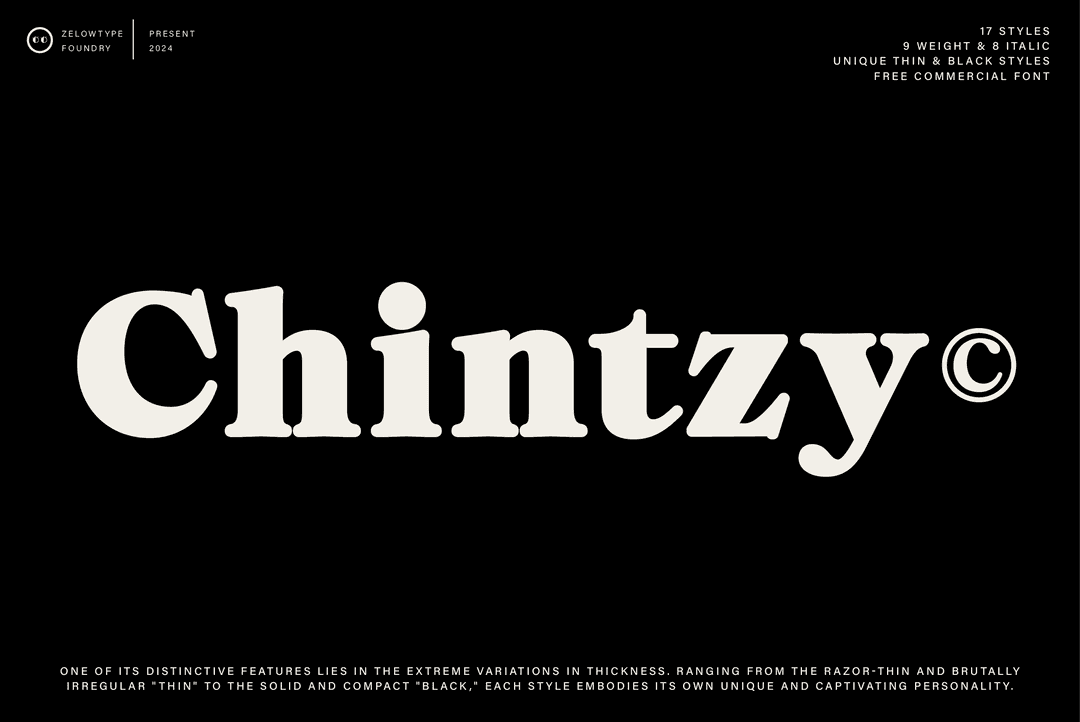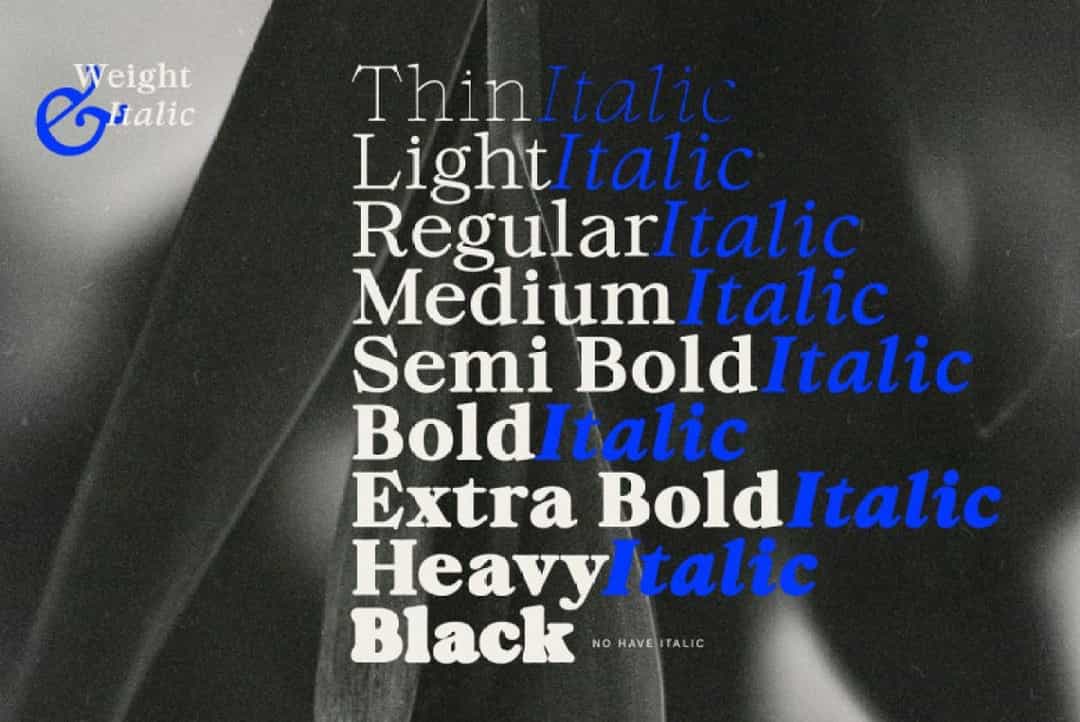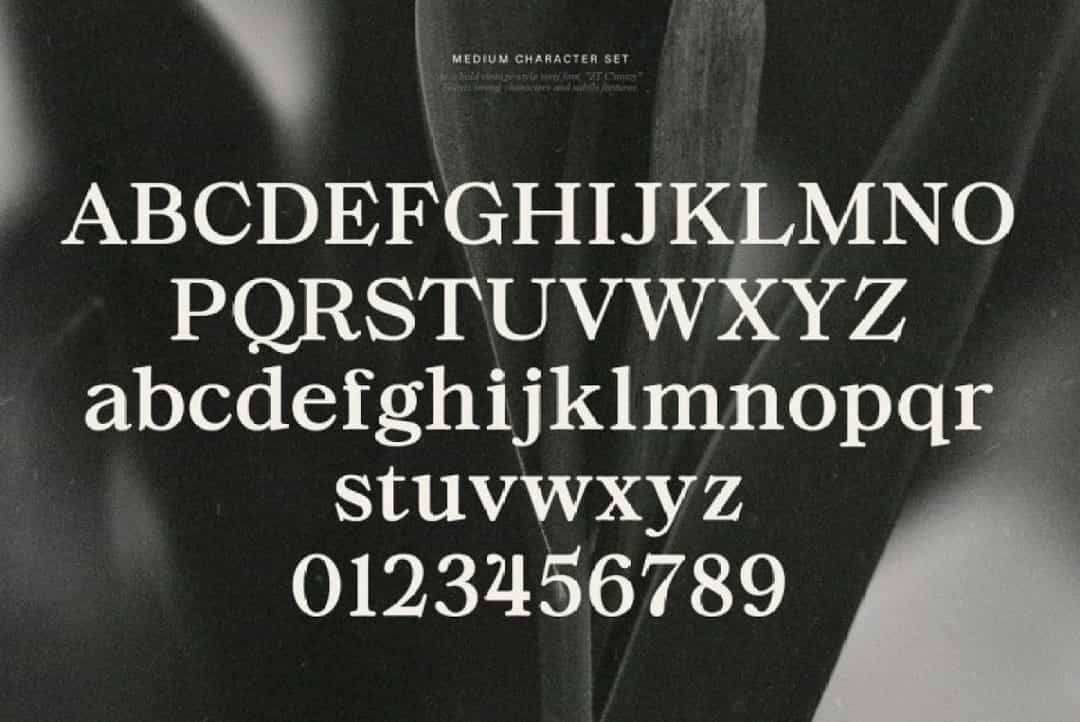
ZT Chintzy pays homage to the soft, expressive and rounded serifs popular during the 60s and 70s, when these typefaces first gained widespread acceptance. Its soft yet attractive serifs bring back warmth and nostalgia from that era’s typefaces; as an attractive vintage-style serif font ZT Chintzy features powerful characters with subdued characteristics for maximum versatility. Offering alternatives, stylistic variations, as well as traditional ligatures; ZT Chintzy boasts plenty of use!